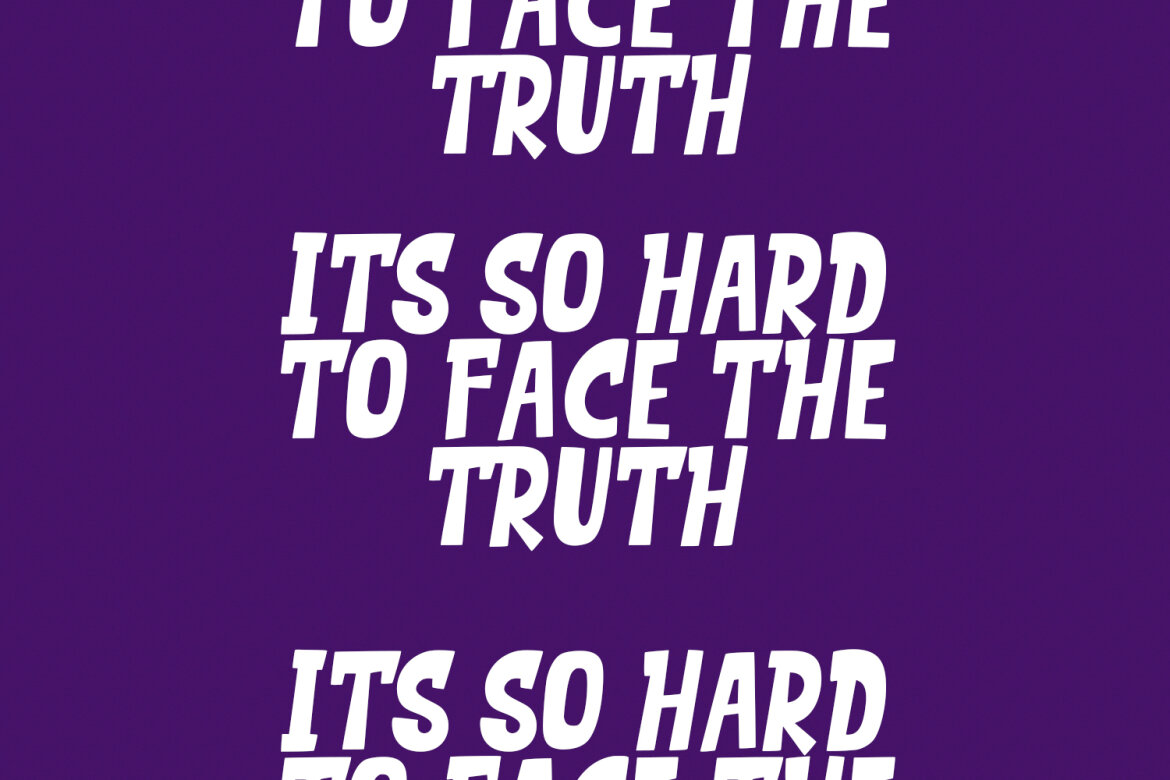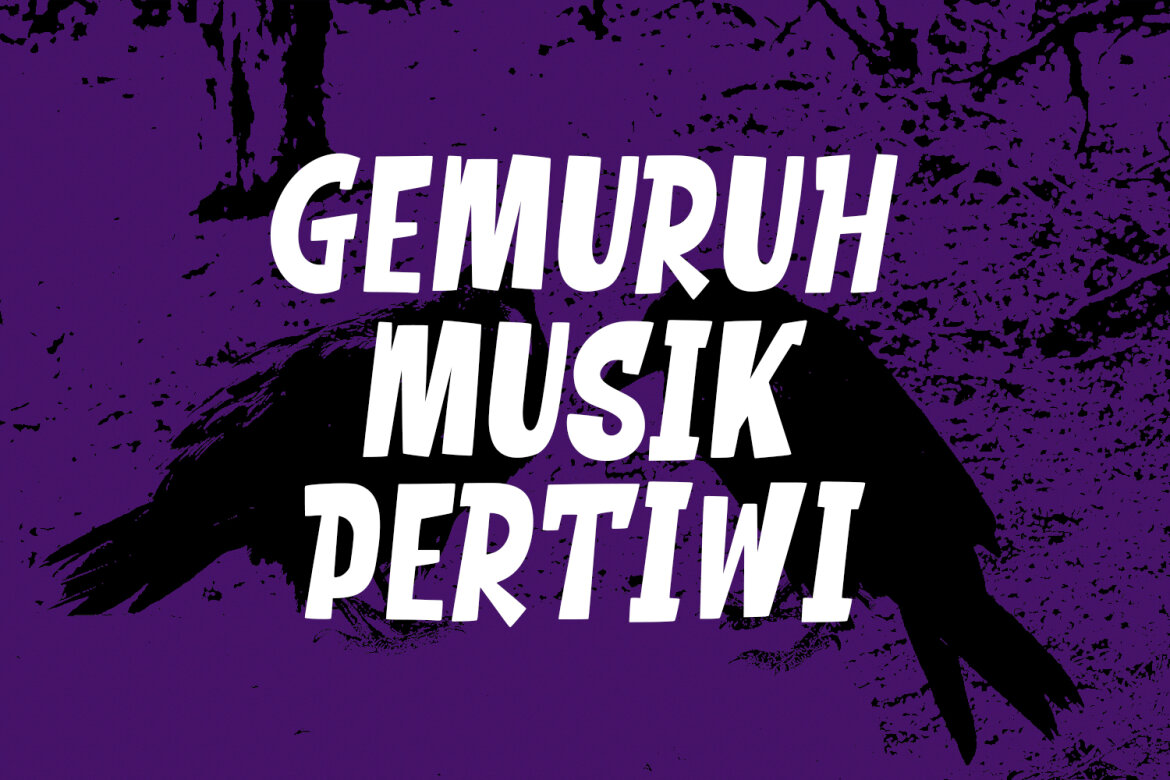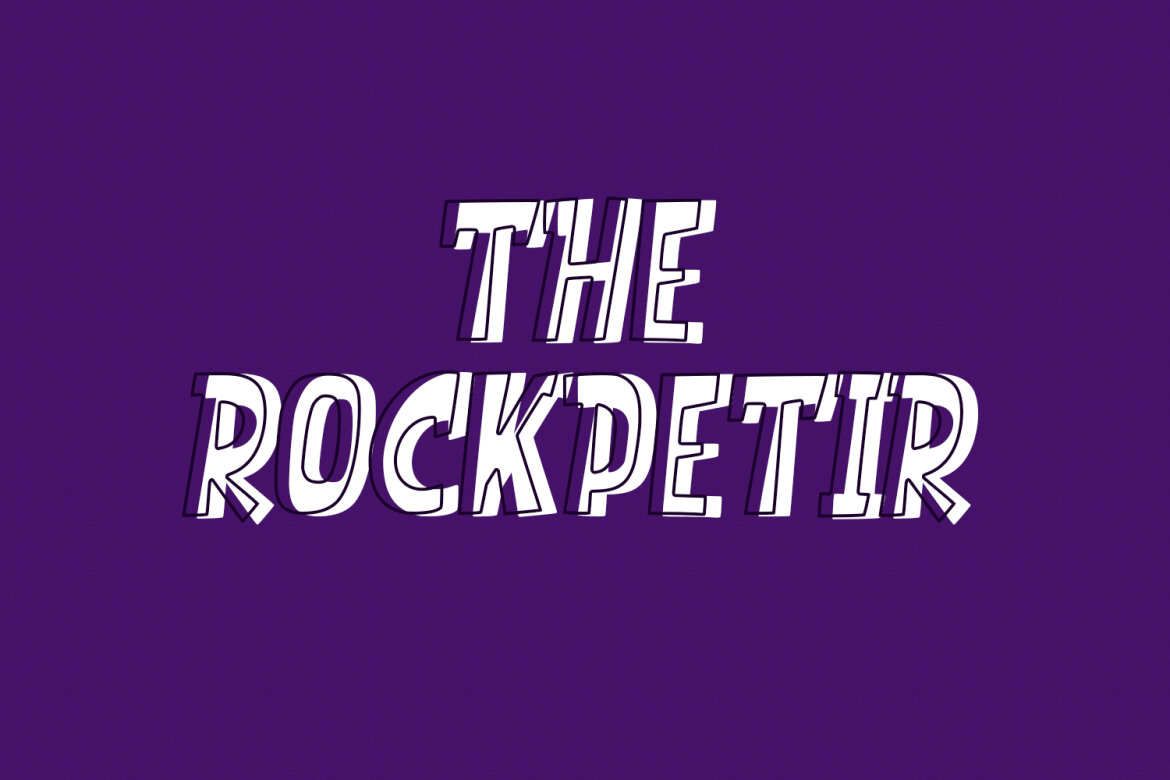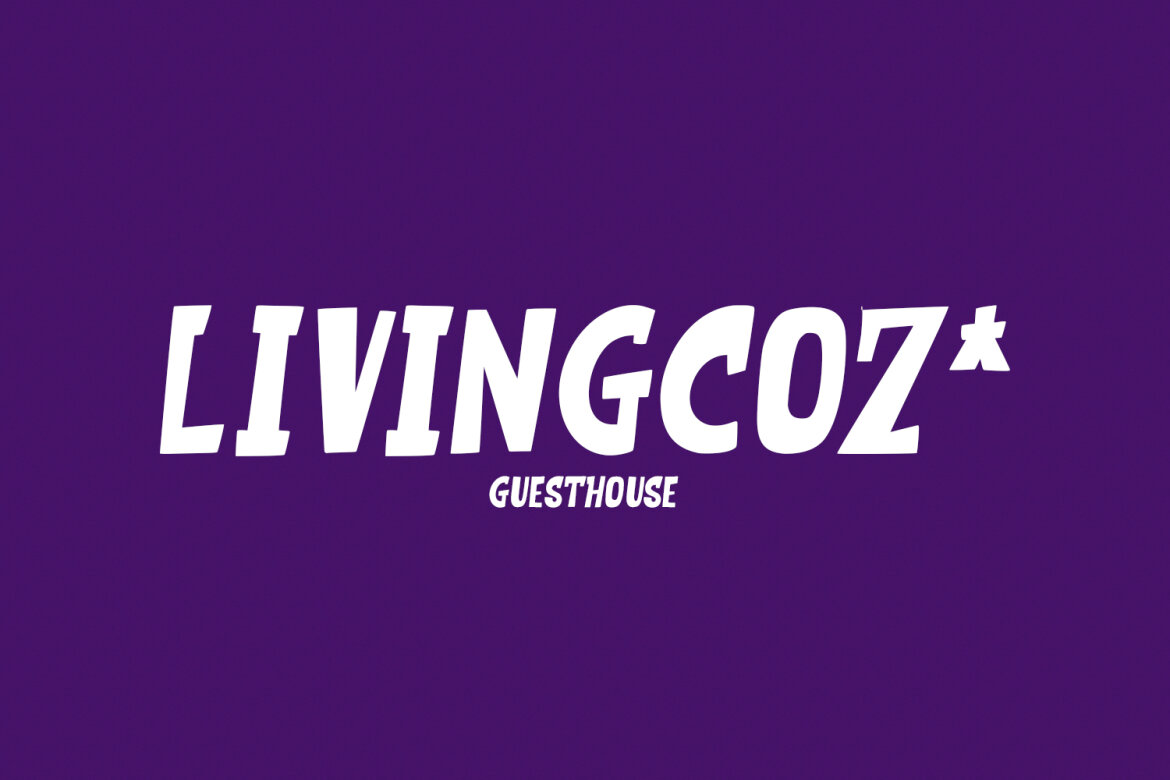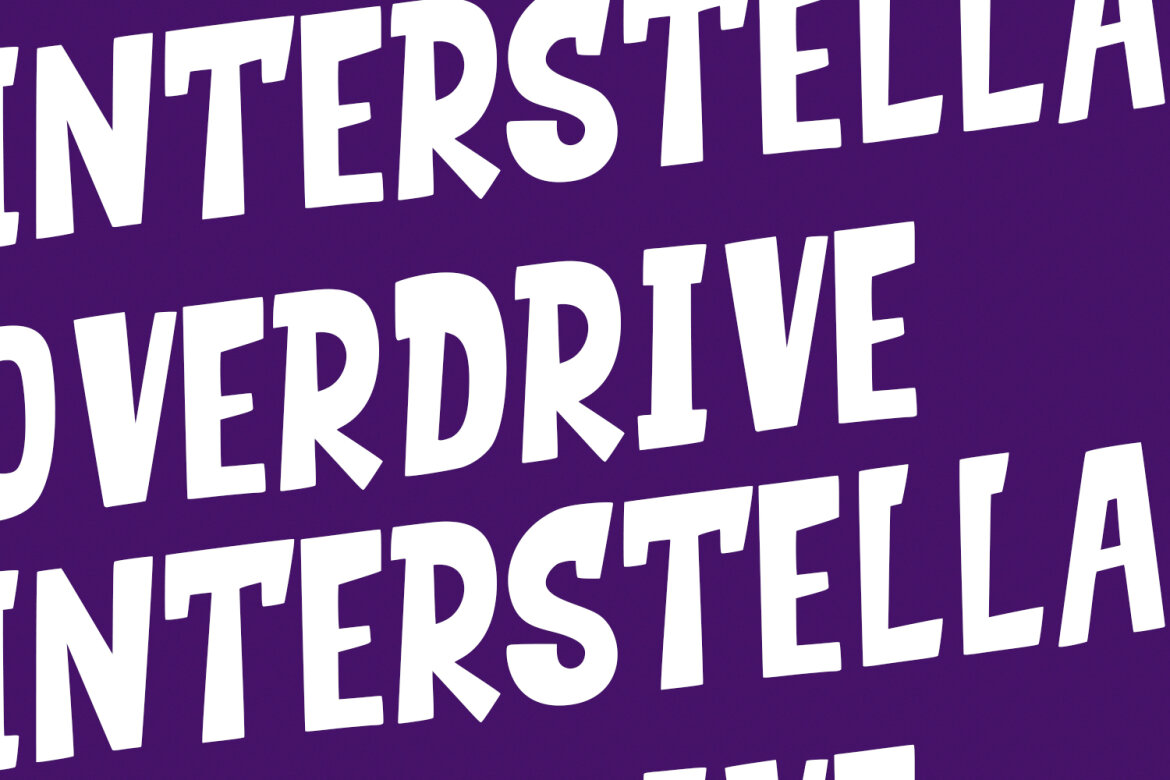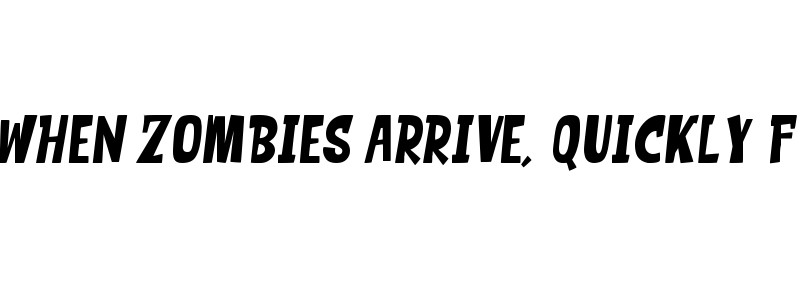
Xavier Handwritten FREE Font
Xavier
Xavier is an all caps handwritten font. With salted style medium low contrast stroke, fun character with a bit of ligatures and alternates. To give you an extra creative work. Xavier font support multilingual more than 100+ language. This font is good for logo design, Social media, Movie Titles, Books Titles, a short text even a long text letter and good for your secondary text font with sans or serif. Make a stunning work with Xavier font.